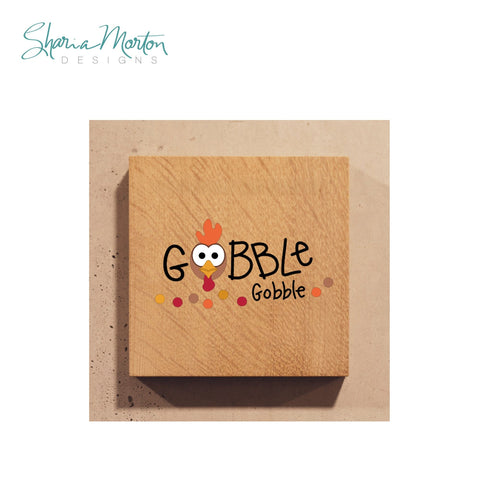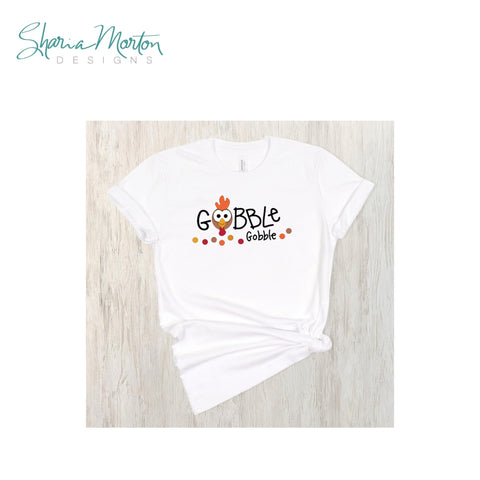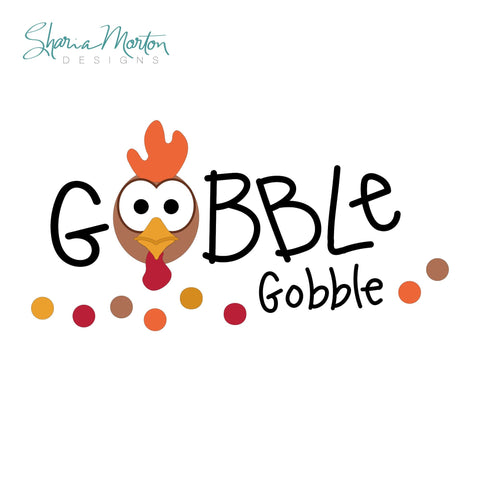
Gobble Gobble | Turkey Thanksgiving Design for Shirts and Fall Decor
Add a playful touch to your Thanksgiving crafting with this cute “Gobble Gobble” design featuring a turkey face in place of the O. Perfect for fall shirts, baby outfits, tote bags, kitchen towels, signs, mugs, and holiday decor. Includes SVG, PNG, and DXF formats for easy cutting and printing. This easy to cut and assemble file is suitable for use with your Silhouette, Cricut or any other popular cutting machine. Use it for Thanksgiving gatherings, classroom parties, family photos, or DIY gifts. This digital download gives you everything you need to create festive holiday apparel and decor that will make everyone smile. Be sure to favorite this listing or add it to your cart so you can find it later.